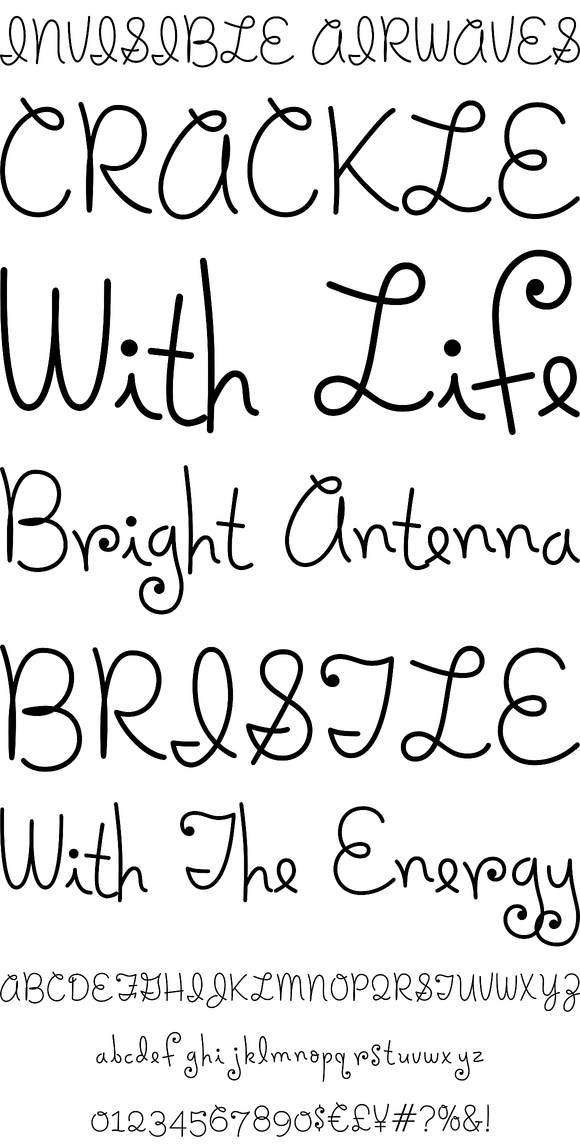
Holiday Springs
Holiday Springs is a playful diddy with an elegant attitued and casual look. It comes complete with brilliant flourishes and a variety of personalities.